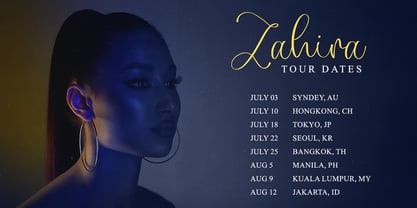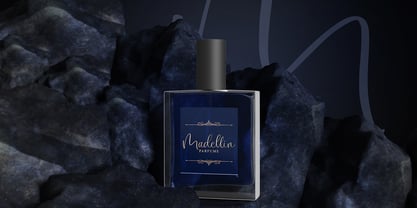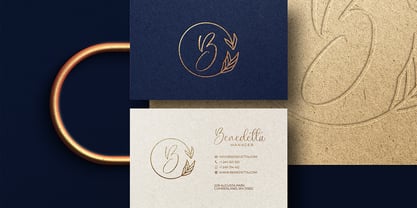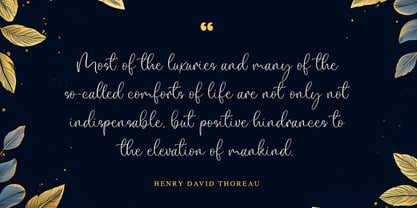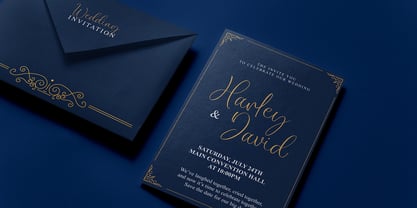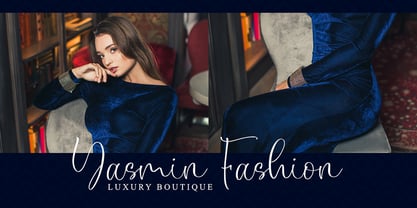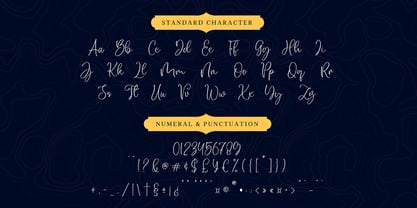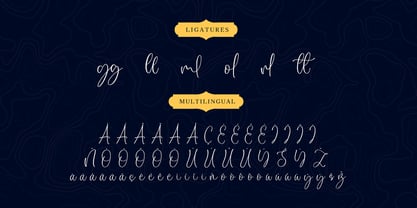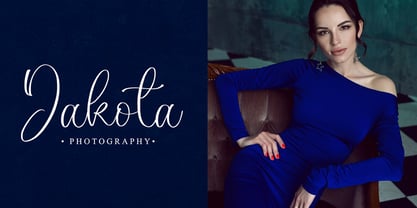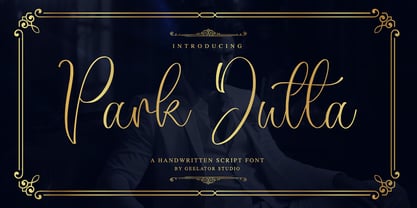
Park Dutta
Park Dutta captures the heart of personalized elegance, blending the timeless charm of handwritten cursive with a distinctly modern flair. Each stroke of this script font feels authentic and intimate, as if it were penned just for you, bringing a touch of heartfelt sophistication to your designs. Perfect for wedding invitations, brand logos, or social media, it ensures your message is delivered with genuine warmth and artistic grace. With its flowing ligatures and subtle imperfections, Park Dutta adds a bespoke, handcrafted feel that stands out from the crowd. Let your words dance on the page with this beautiful, free-flowing script, turning every project into a work of art.